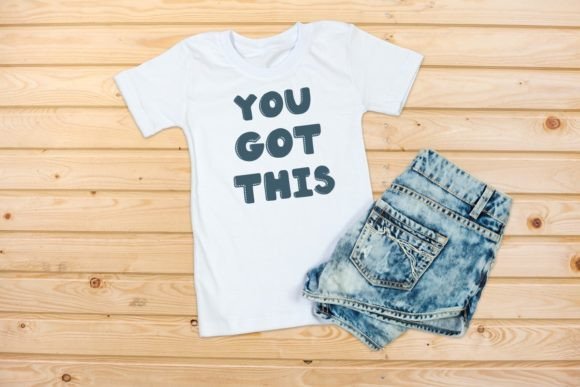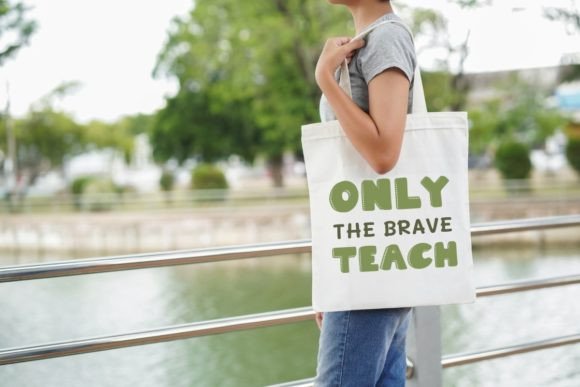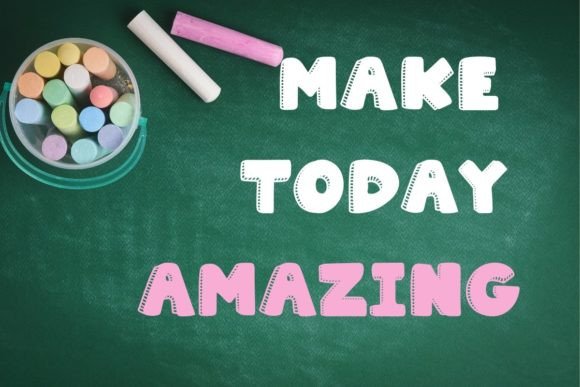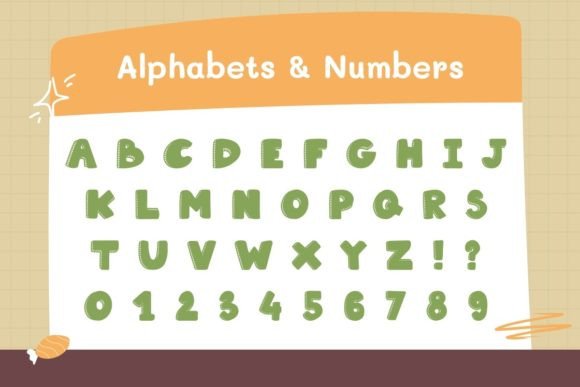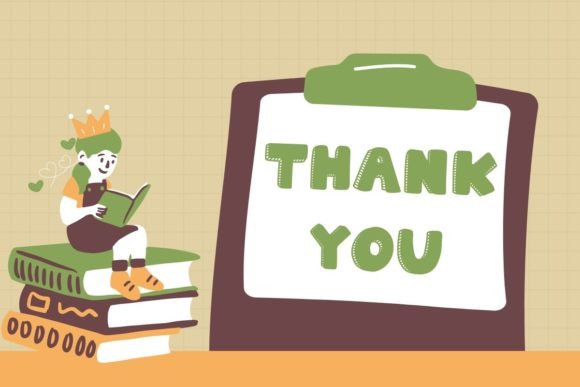
BTS Font: The Cute and Funny Font for All Your Creative Needs
Are you a designer, crafter, or DIY enthusiast looking for a font that can add a touch of fun and playfulness to your creations? Look no further than the BTS font, also known as the Back to School font. This adorable font is perfect for a wide range of applications, from greeting cards to headlines, stickers, and more. In this article, we’ll explore the world of BTS font and discover how it can elevate your designs and crafts.
What is BTS Font?
BTS font, or Back to School font, is a type of digital font designed to resemble the handwriting of a student heading back to school. It’s characterized by its cute, playful, and slightly imperfect style, making it perfect for creating fun and engaging designs. The font is often used for school-themed projects, but its versatility makes it suitable for a wide range of applications.
Features of BTS Font
The BTS font has several features that make it a popular choice among designers and crafters. Some of its key features include:
- Cute and playful style: The BTS font has a unique, handwriting-like style that’s both cute and playful. It’s perfect for creating designs that appeal to a younger audience.
- Imperfect and handwritten look: The font has a slightly imperfect, handwritten look that gives it a personal and relatable feel.
- Highly legible: Despite its playful style, the BTS font is highly legible, making it perfect for use in headlines, titles, and body text.
- Versatile: The BTS font can be used for a wide range of applications, from greeting cards to stickers, and from digital designs to print projects.
Uses of BTS Font
The BTS font is incredibly versatile, and its uses are endless. Here are some popular ways to use this font:
- Greeting cards: Add a personal touch to your greeting cards with the BTS font. It’s perfect for creating fun and playful cards for birthdays, holidays, and special occasions.
- Headlines and titles: Use the BTS font to create eye-catching headlines and titles for your designs. It’s perfect for adding a touch of whimsy to your projects.
- Stickers and labels: The BTS font is perfect for creating fun and playful stickers and labels. Use it to add a personal touch to your DIY projects.
- Digital designs: The BTS font can be used for digital designs, such as social media graphics, blog posts, and website headers.
Tips for Using BTS Font
Here are some tips for using the BTS font effectively:
- Pair it with other fonts: The BTS font pairs well with other fonts, such as sans-serif fonts and script fonts. Experiment with different font combinations to create unique and interesting designs.
- Use it in moderation: While the BTS font is cute and playful, it can be overwhelming if used excessively. Use it in moderation to create a balanced design.
- Experiment with colors: The BTS font looks great in a variety of colors. Experiment with different colors to find the perfect combination for your design.
The BTS font is a cute and funny font that’s perfect for a wide range of applications. Its playful style, imperfect look, and high legibility make it a popular choice among designers and crafters. Whether you’re creating greeting cards, headlines, stickers, or digital designs, the BTS font is sure to elevate your creations. With its versatility and endless uses, it’s no wonder that the BTS font has become a favorite among designers and crafters.
With its cute and playful style, the BTS font is sure to add a touch of fun and whimsy to your designs. Whether you’re a designer, crafter, or DIY enthusiast, this font is a must-have in your font collection.